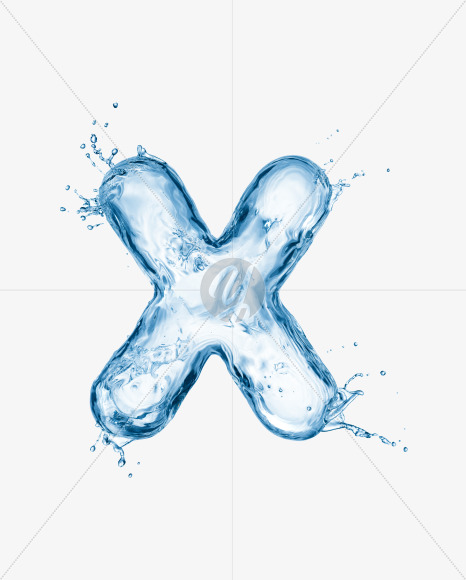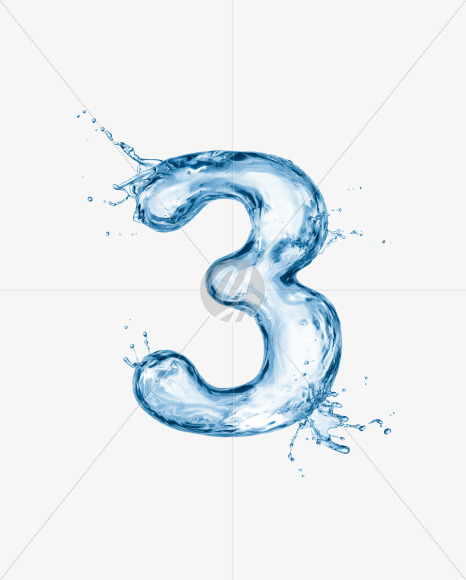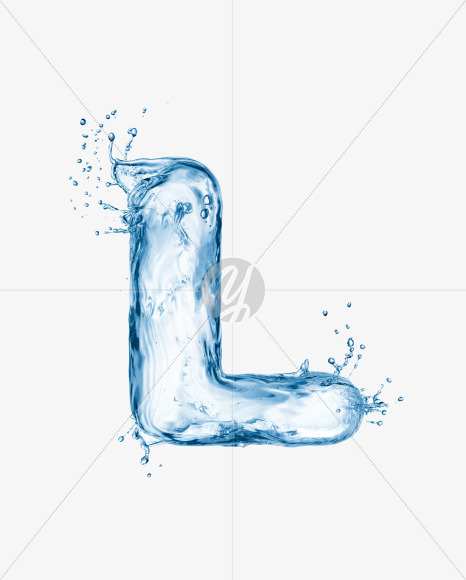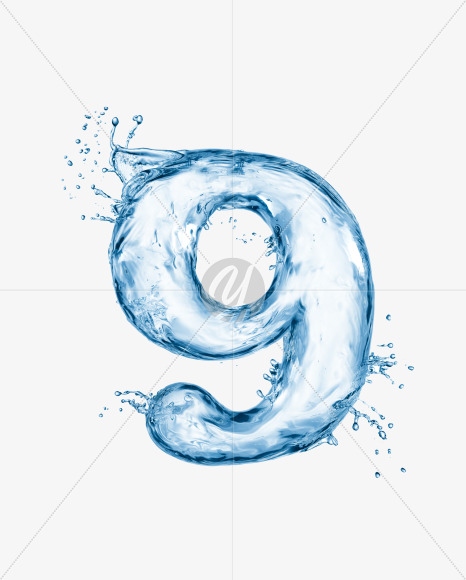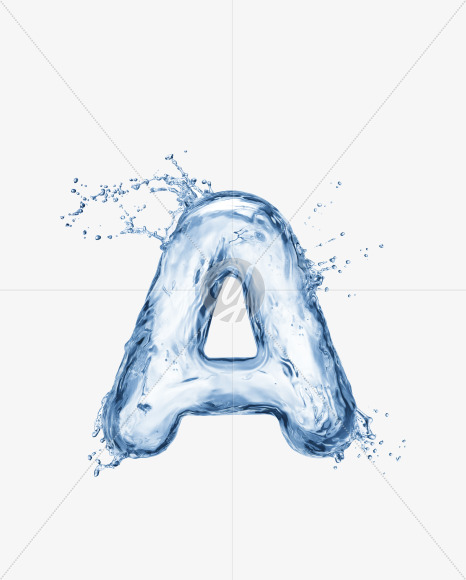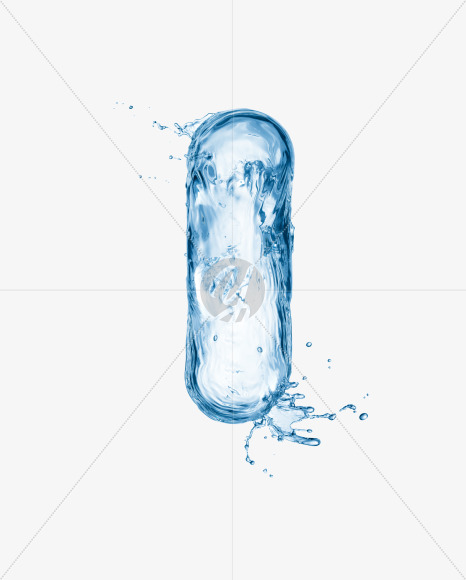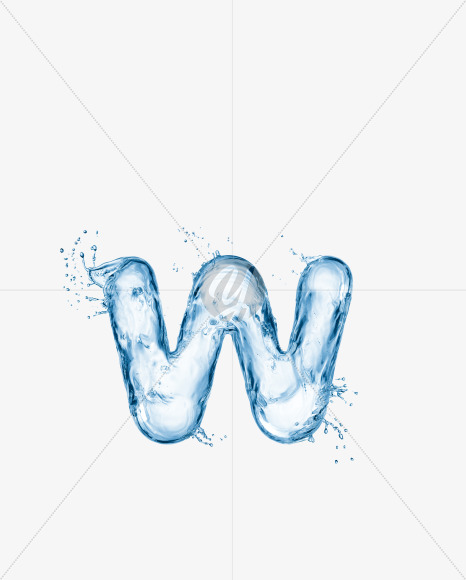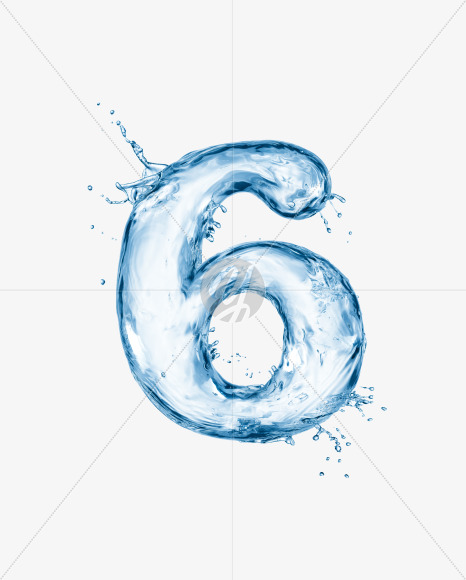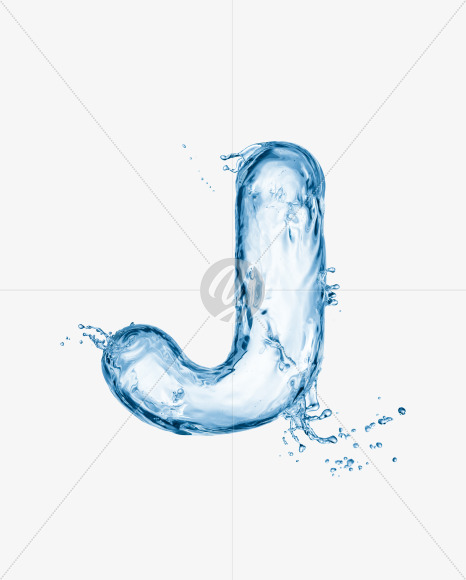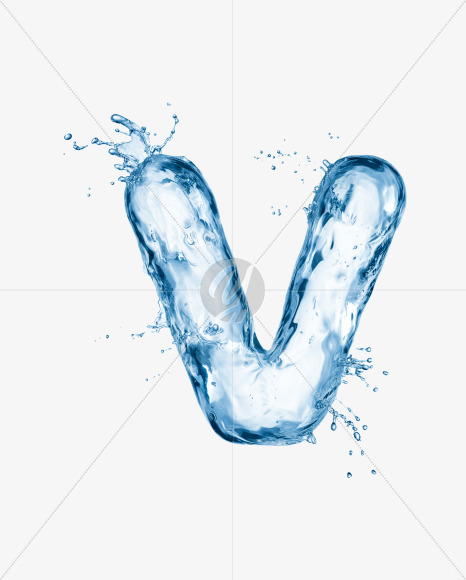
Water Splash Font stands for clear vision and the beautiful simplicity of water typography. If you want to give your graphic design life a new course that will flow as swift as a mountain river, this water font is an excellent pick.